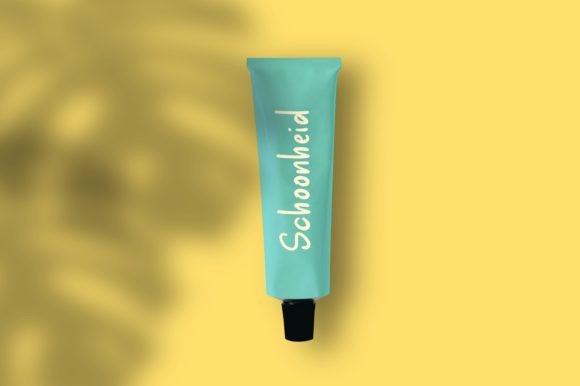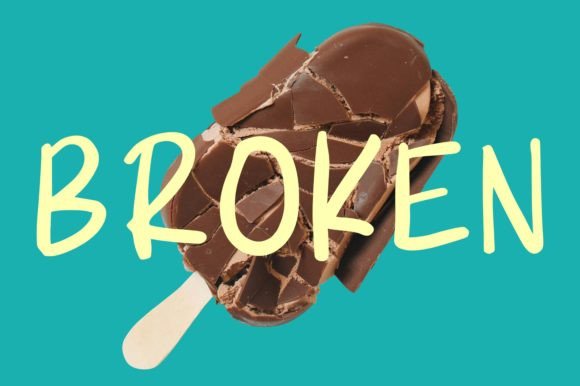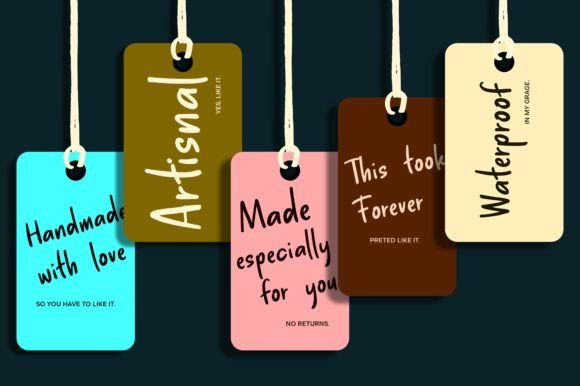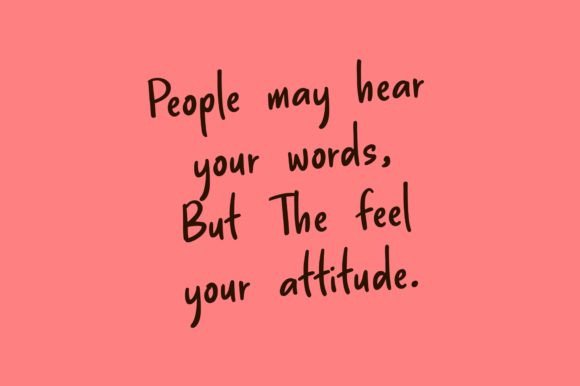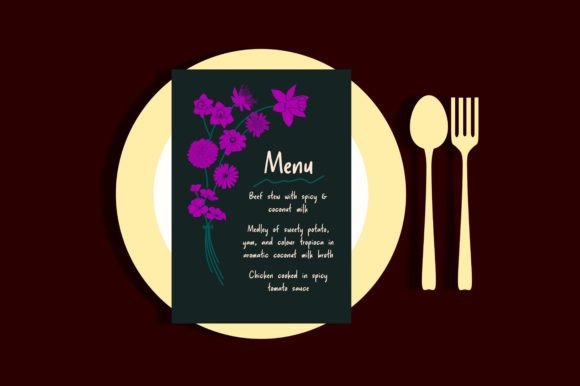
Aesthetic Scratch Font: Elevate Your Designs with a Casual Handwritten Touch
In the world of design, fonts play a crucial role in conveying the tone and personality of a project. If you’re looking for a font that exudes a casual, yet aesthetic appeal, then Aesthetic Scratch is the perfect choice. This beautiful handwritten font is designed to add a personal touch to your creations, making it ideal for a wide range of applications.
What is Aesthetic Scratch Font?
Aesthetic Scratch is a casual handwritten font that boasts a natural, yet refined handwriting style. Its unique charm makes it perfect for various design projects, including greeting cards, wedding stationery, photographer watermark logos, modern websites, clothing designs, and more. With Aesthetic Scratch, you can add a touch of elegance and sophistication to your work.
Key Features of Aesthetic Scratch Font
- Natural Handwriting Style: Aesthetic Scratch displays a natural handwriting style that is both casual and aesthetic.
- Full Set of Standard Alphabet: The font includes a complete set of standard alphabet characters, ensuring that you have everything you need to create stunning designs.
- Handwritten Punctuation: Aesthetic Scratch also features handwritten punctuation, adding a touch of authenticity to your work.
Uses of Aesthetic Scratch Font
Aesthetic Scratch is a versatile font that can be used in a variety of design projects. Here are some ideas to get you started:
- Greeting Cards: Add a personal touch to your greeting cards with Aesthetic Scratch’s casual, handwritten style.
- Wedding Stationery: Make your wedding stationery stand out with this beautiful font, perfect for invitations, save-the-date cards, and more.
- Photographer Watermark Logos: Aesthetic Scratch is an excellent choice for photographer watermark logos, adding a touch of elegance to your work.
- Modern Websites: Use Aesthetic Scratch to create a unique and visually appealing website that stands out from the crowd.
- Clothing Designs: Add a personal touch to your clothing designs with this beautiful handwritten font.
Benefits of Using Aesthetic Scratch Font
So, why choose Aesthetic Scratch font for your design projects? Here are some benefits:
- Unique and Eye-Catching: Aesthetic Scratch is a one-of-a-kind font that will make your designs stand out.
- Easy to Read: The font’s clear and natural handwriting style makes it easy to read, even at small sizes.
- Versatile: Aesthetic Scratch can be used in a wide range of design projects, from digital to print.